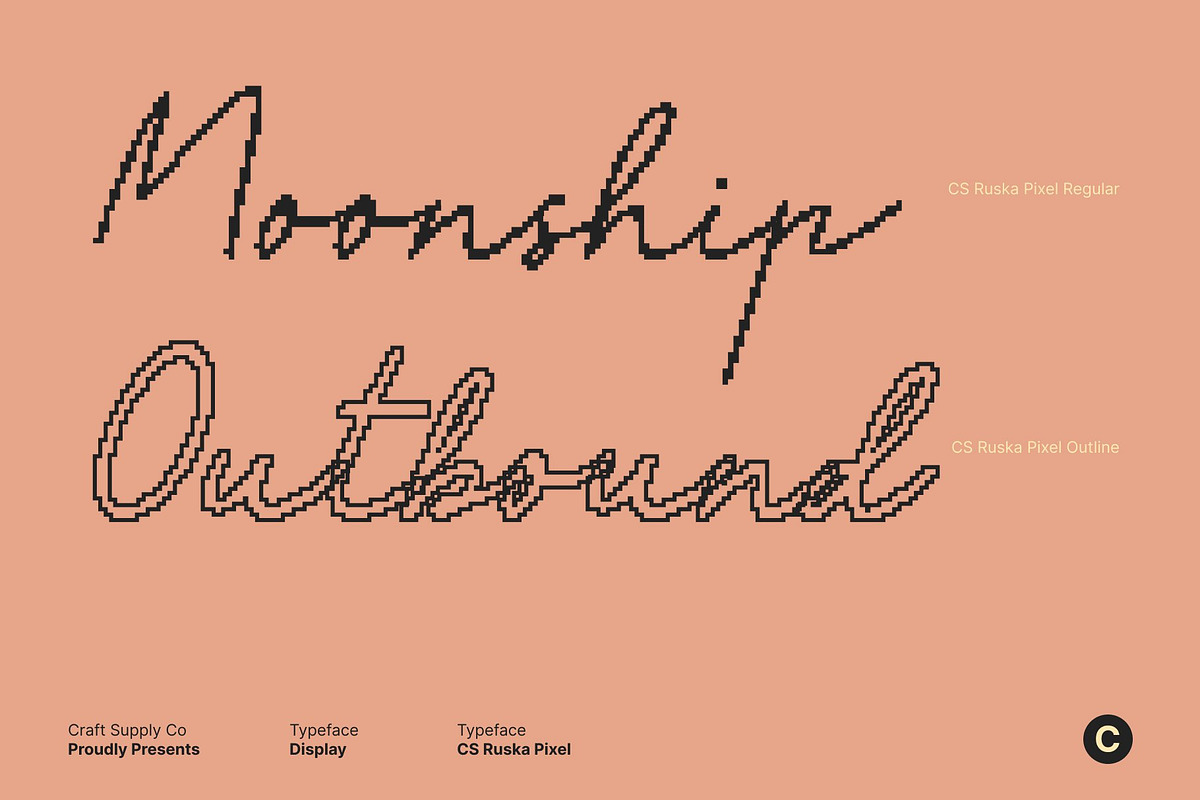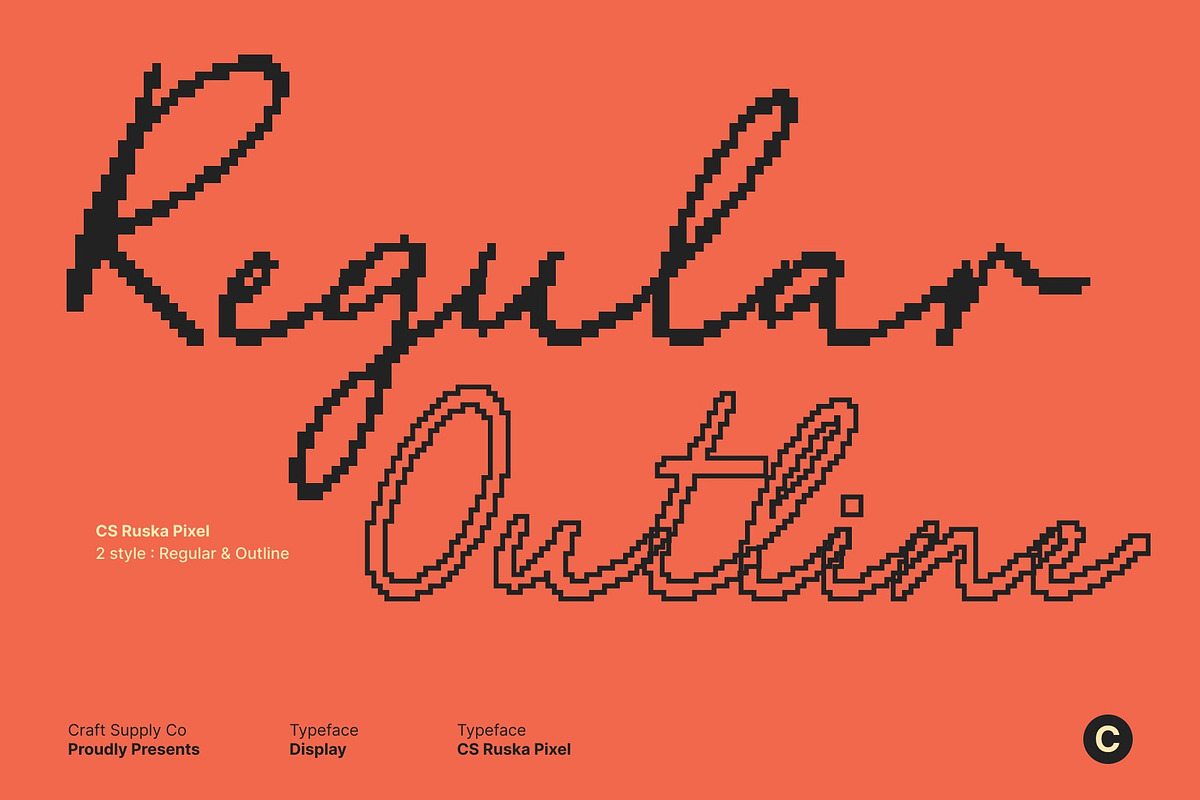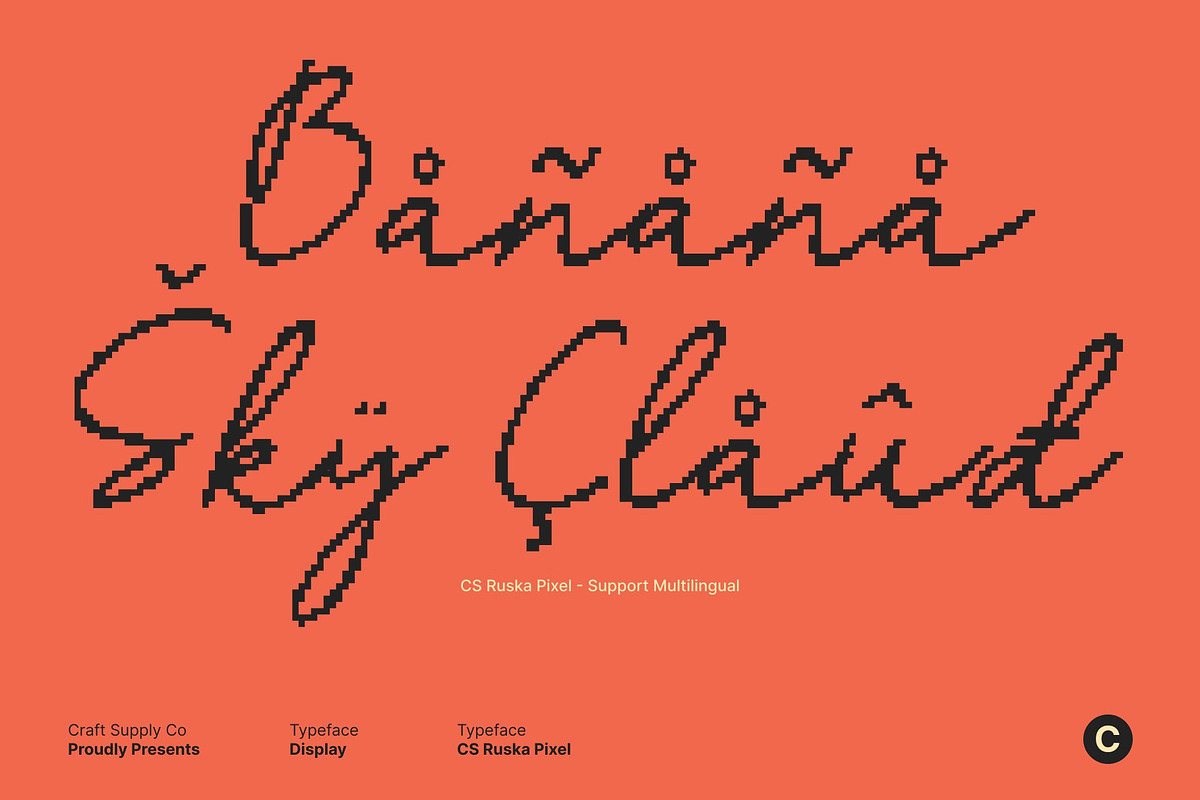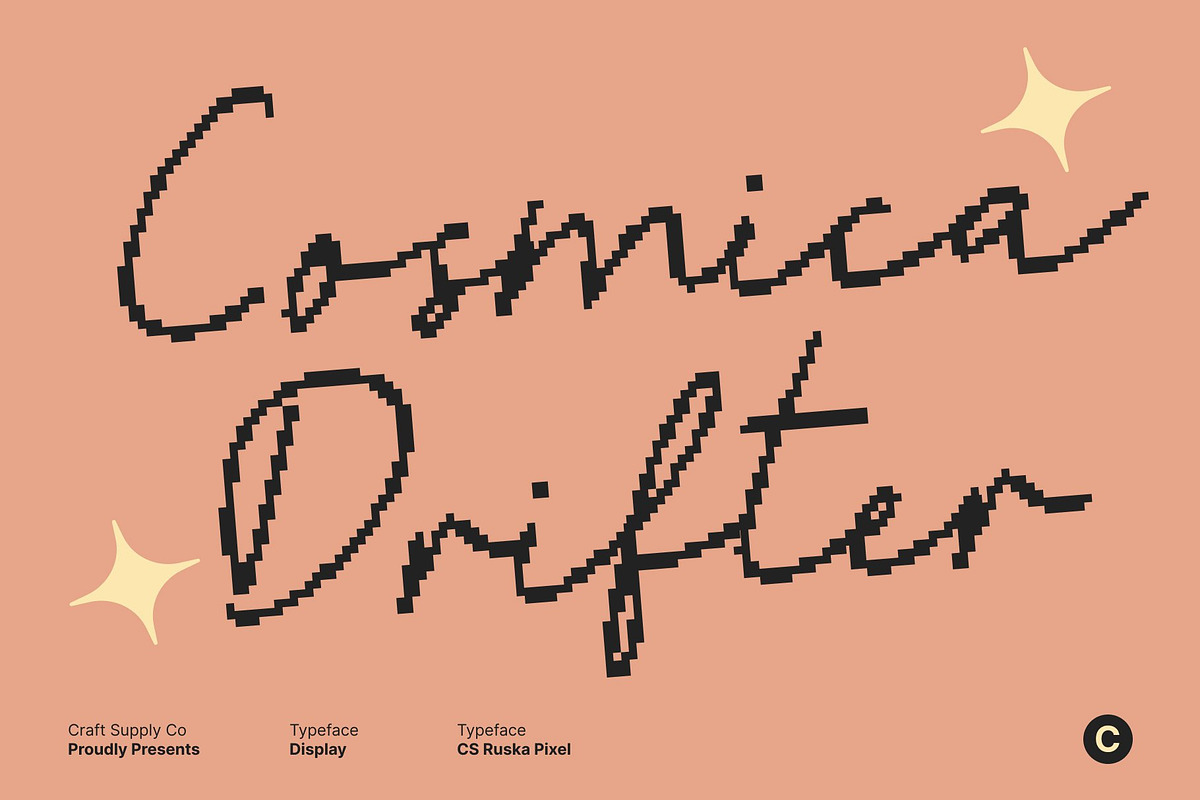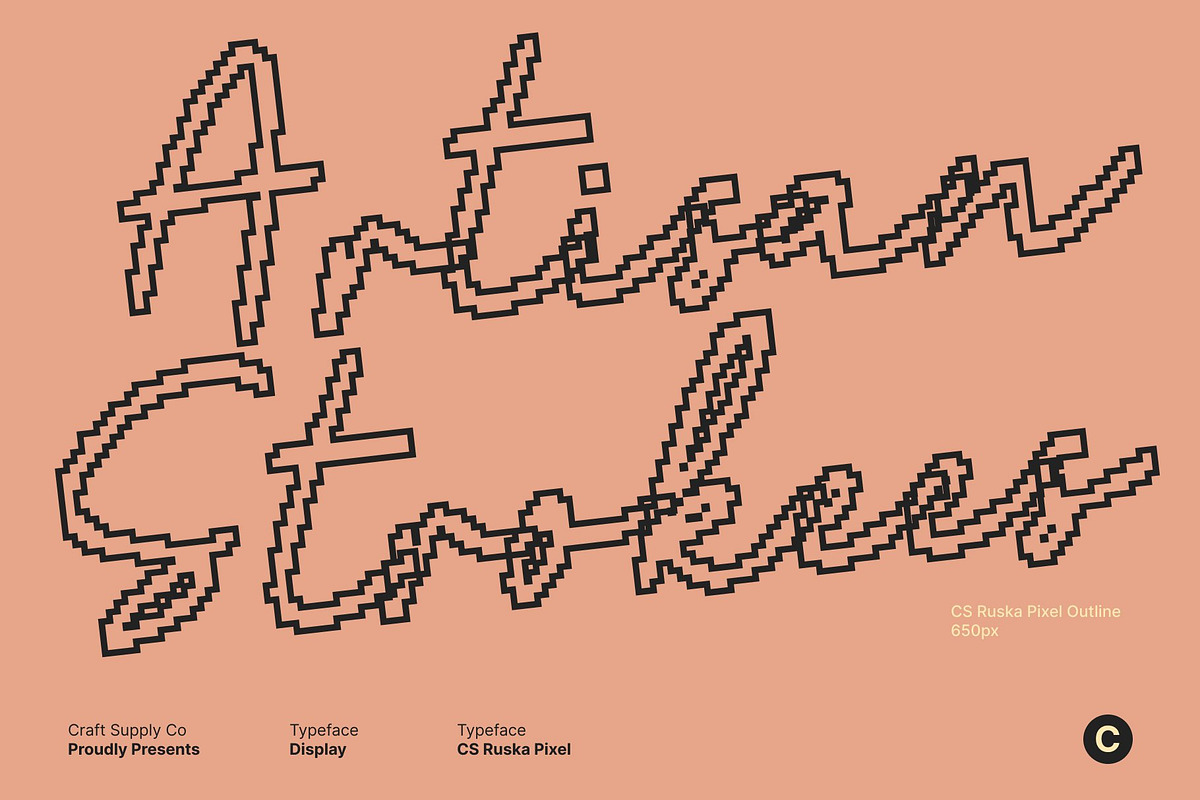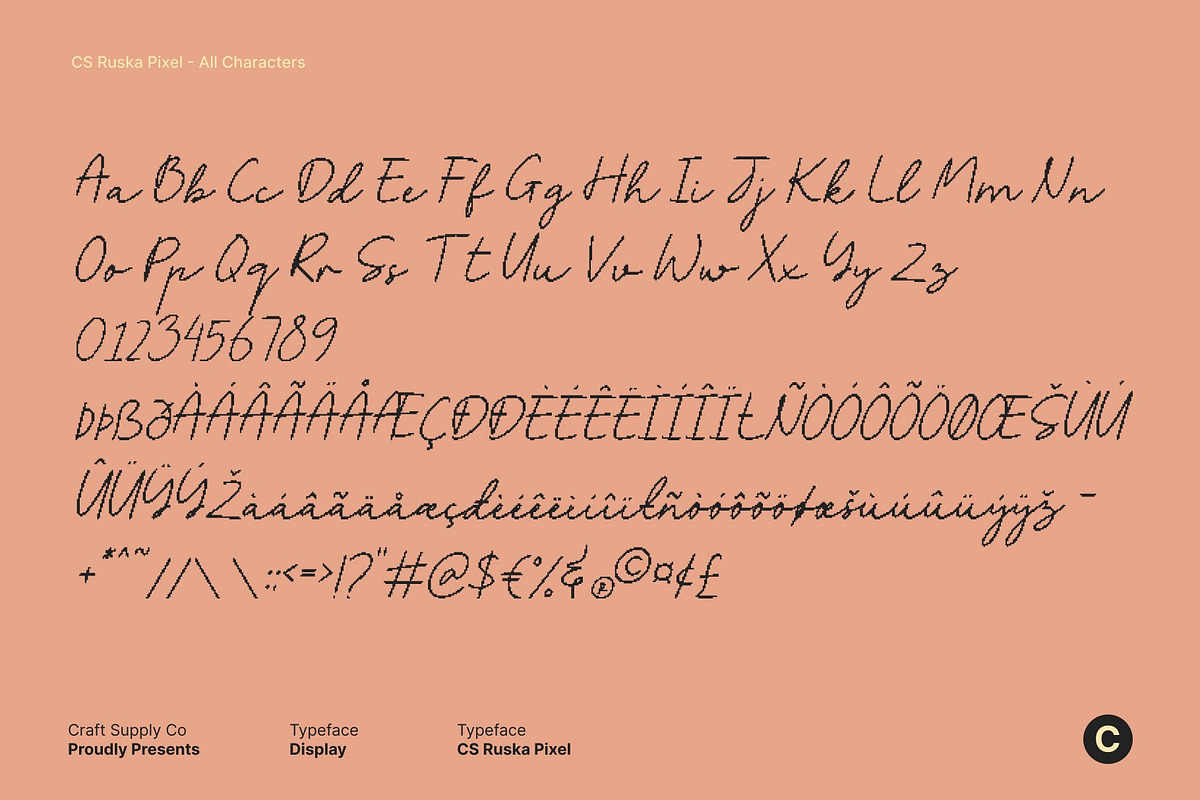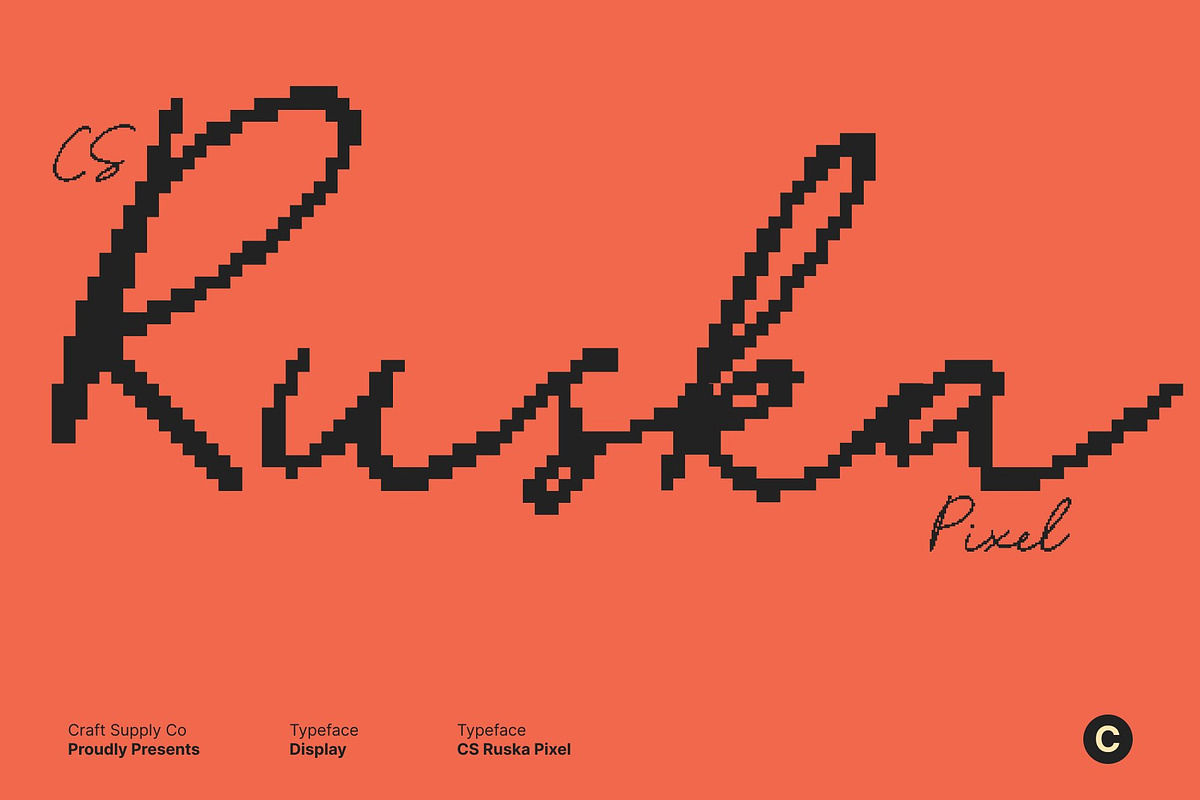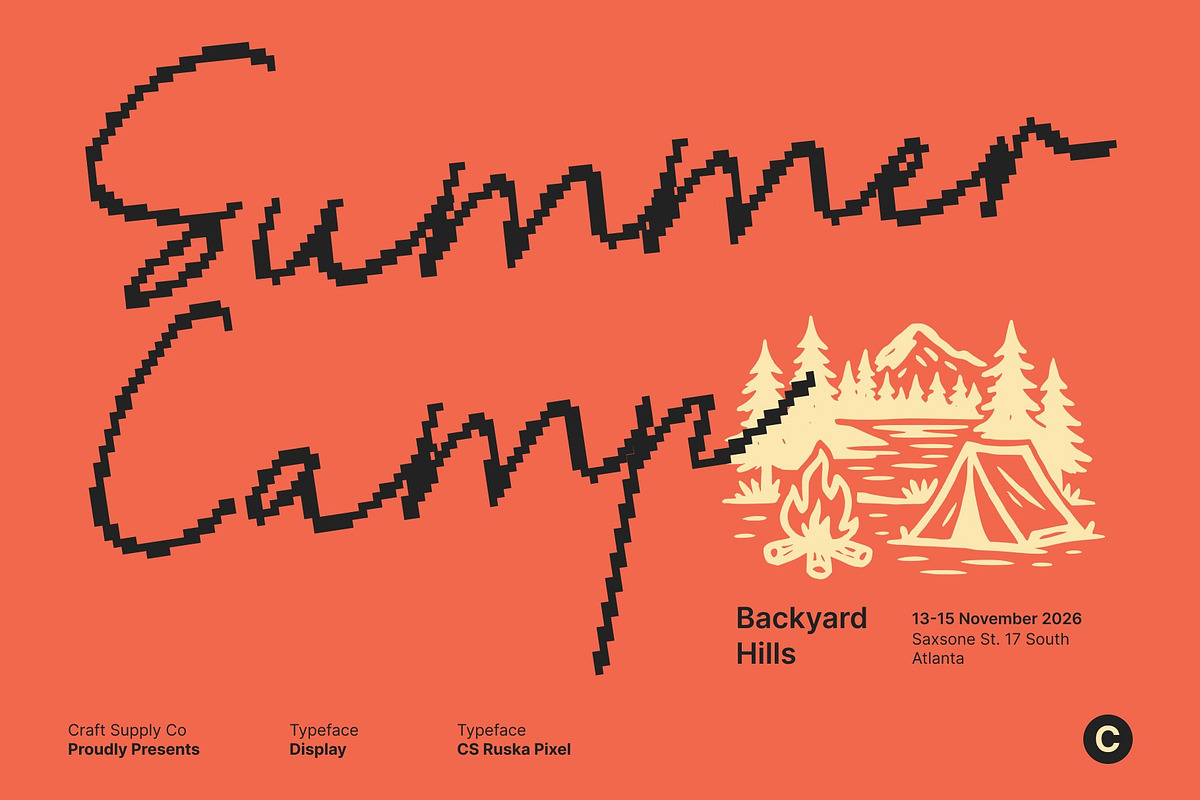
CS Ruska Pixel
CS Ruska Pixel – Romantic Script Font with Mediterranean Elegance
Romantic Script with Timeless Mediterranean Charm This is a romantic and stylish script font that flows gracefully, inspired by the warmth and elegance of Mediterranean handwriting. Its smooth, fluid strokes echo the expressive beauty of Italian calligraphy, bringing a sense of timeless sophistication and heartfelt emotion to every composition.
Elegant Flow with Natural Handwritten Rhythm Each curve is carefully designed to create a seamless connection between letters, resulting in a natural and harmonious rhythm. The flowing forms and subtle contrast give the font an effortless handwritten feel, balancing softness and refinement. This graceful movement makes the font feel personal, expressive, and beautifully alive.
Italian-Inspired Sophistication with Artistic Flair Rooted in classic Italian aesthetics, this font conveys romance, confidence, and artistic sensitivity. Its balanced proportions and elegant ligatures enhance visual continuity, making it suitable for refined designs while maintaining a warm, inviting character that feels both luxurious and sincere.
Perfect for Elegant and Luxurious Creative Projects Ideal for branding, wedding invitations, packaging, editorials, and premium products, adds an elevated touch of romance and sophistication. Its flowing script and Mediterranean-inspired spirit make it a perfect choice for designs that seek timeless beauty, emotional warmth, and refined elegance.
- CS Ruska Pixel Regular
- CS Ruska Pixel Outline